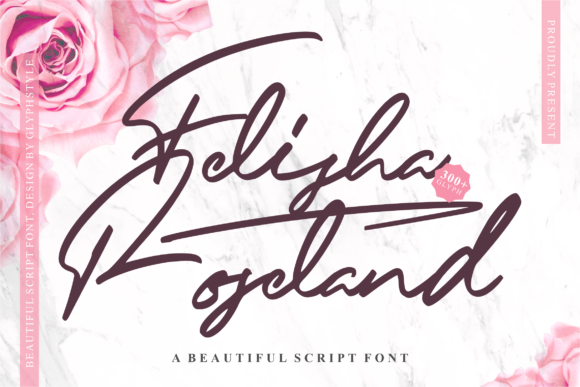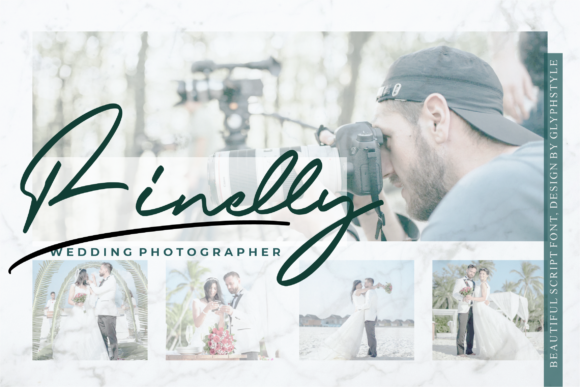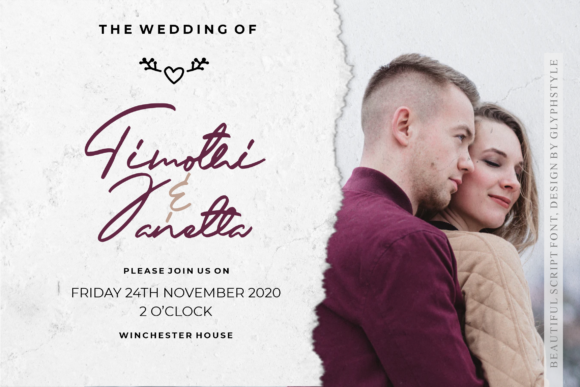
Felisha Roseland Font
Felisha Roseland is a smooth handwritten font. It is suitable for any branding, product packaging, invitation, quote, t-shirt, label, poster, logo that you wish to develop.